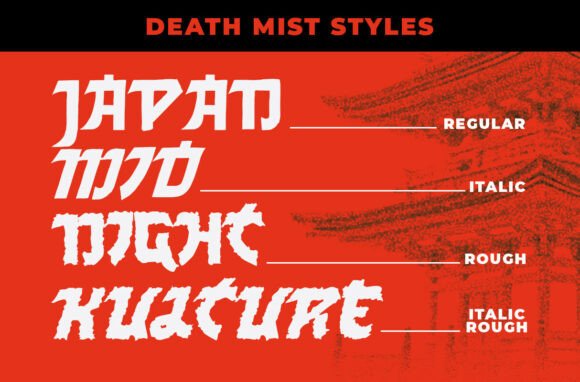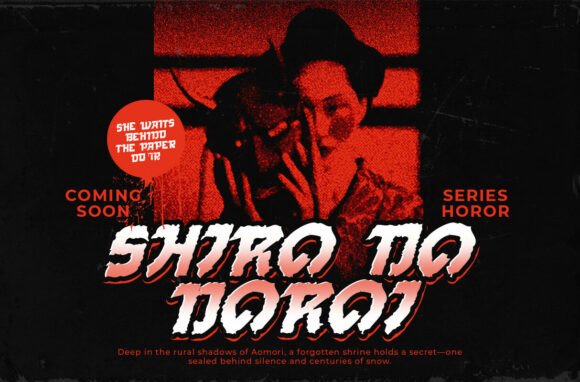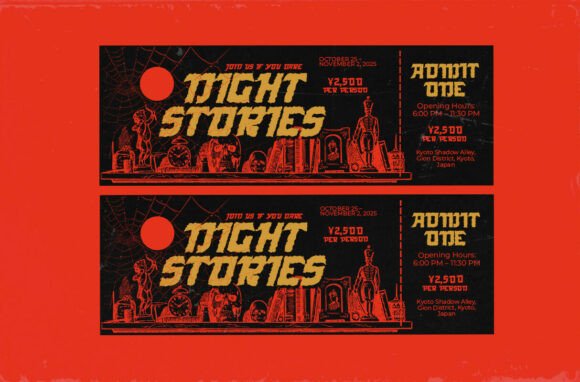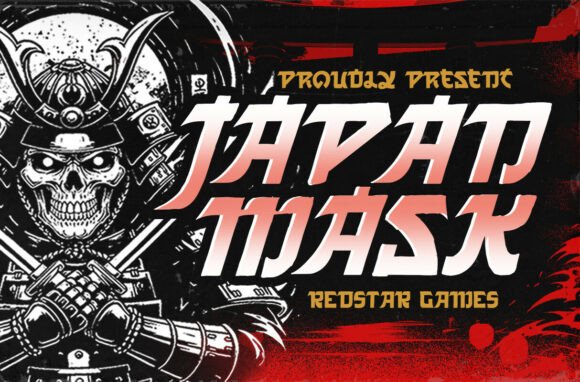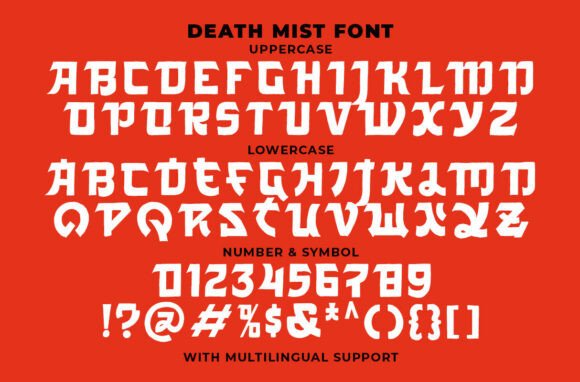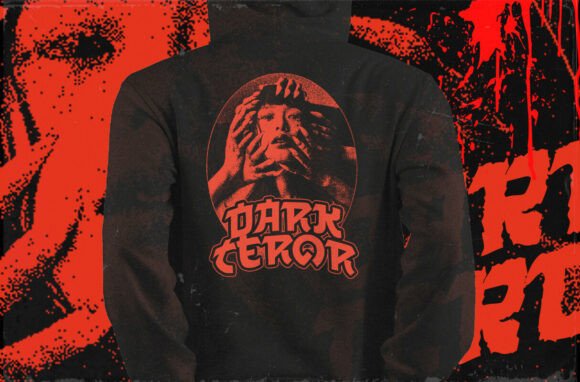
The Birth of a Bold: Unleashing the Power of Death Mist Font
I still remember the night I was working on a horror movie poster project, and my client asked for a font that would make their title scream “don’t mess with me.” I scoured the internet, tried a dozen fonts, but nothing seemed to fit the bill. That’s when I stumbled upon Death Mist Font. With its sharp, aggressive letterforms and blood-red aesthetic, it was love at first sight. In this article, I’ll share my journey with Death Mist, its features, and how to make the most of it in your designs.
Unpacking Death Mist: The Good, the Great, and the Quirks
What I Love About Death Mist ✨
- 💥 Raw Energy: Death Mist delivers an unapologetic, bold vibe that’s perfect for projects demanding high drama and intensity.
- 🎨 Versatility: Its unique blend of Japanese design inspiration and gritty aesthetic makes it suitable for various applications, from horror movie titles to heavy metal album covers.
- 🔍 Attention to Detail: The font’s sharp, aggressive letterforms and precise cuts make it stand out in any artwork.
While Death Mist is an incredible font, it’s not without its quirks. For instance:
- 🤔 Limited Use in Body Text: Due to its bold and aggressive nature, Death Mist might not be the best choice for body text. It’s ideal for titles, headings, or emphasis.
- ⚠️ Glythic Limitations: Some users have reported limited access to certain glyphs or stylistic alternates. However, this can be overcome by using OpenType features in compatible software.
The Story Behind Death Mist: Designer Inspiration
Death Mist’s design inspiration comes from the darker corners of Japanese art and heavy metal culture. Its creator aimed to craft a font that would evoke raw energy and unapologetic drama. By combining sharp, aggressive letterforms with a gritty aesthetic, Death Mist was born – a font that’s impossible to ignore.
Q: What type of projects is Death Mist best suited for?
A: Death Mist is perfect for projects demanding raw energy and unapologetic drama, such as horror movie titles, heavy metal album covers, game logos, and dark-themed artwork.
Q: Can I use Death Mist for body text?
A: While possible, Death Mist’s bold and aggressive nature makes it more suitable for titles, headings, or emphasis. Consider using a more readable font for body text.
Q: Does Death Mist support OpenType features?
A: Yes, Death Mist supports OpenType features, allowing you to access stylistic alternates, glyphs, and swashes in compatible software like Adobe Photoshop and Illustrator.